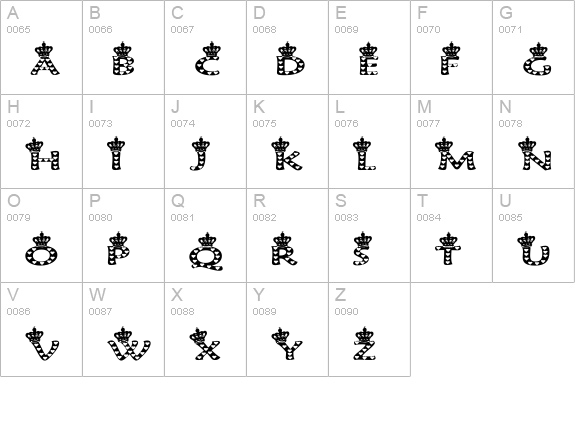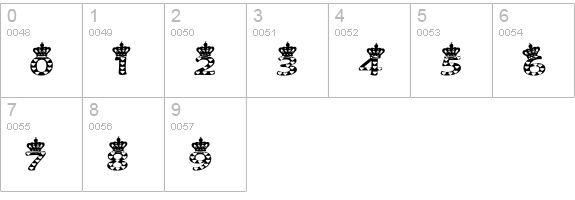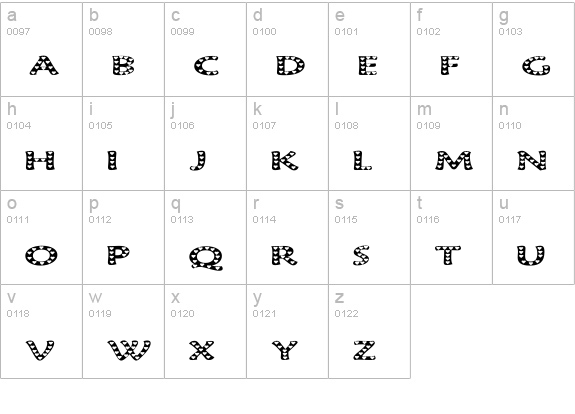
Queen of Hearts Font Details
Introducing Queen of Hearts Font, an exquisite and captivating typeface that will instantly steal your heart. Designed with elegance and sophistication in mind, this font is perfect for adding a touch of regal charm to any project. Queen of Hearts Font features beautifully intricate letterforms, with delicate curves and ornate details that are reminiscent of a royal palace. Its unique design effortlessly blends classic beauty with a modern twist, making it a versatile choice for various applications. Whether you're creating invitations for a wedding fit for a queen, designing a logo for a high-end brand, or crafting a stunning poster or flyer, Queen of Hearts Font is sure to make a lasting impression. Its timeless appeal and refined aesthetics make it suitable for both print and digital projects, ensuring that your design stands out from the crowd. But the best part? Queen of Hearts Font is free! Yes, you read that right. This exceptional font is available to download at FontsMarket.com, allowing you to elevate your design game without breaking the bank. With just a few clicks, you can bring a touch of royal elegance to your creative endeavors, all at no cost. So why wait? Embrace the luxurious allure of Queen of Hearts Font and let your designs reign supreme. Download it now for free at FontsMarket.com and unlock a world of possibilities for your next project. Let your creativity flourish and watch as your designs come to life with the charm and grace of Queen of Hearts Font.